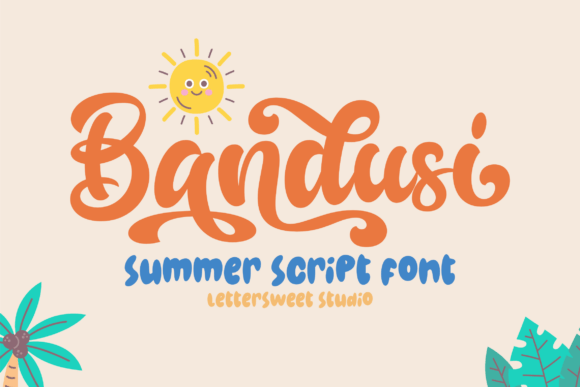
Summer Vibes, Hand-Lettered Style: Meet the Bandusi Font
Have you ever been working on a design project and suddenly, a burst of creativity strikes? You envision a vibrant, sunny scene that screams summer fun, and your imagination runs wild with possibilities. That’s exactly what happens when you add the Bandusi Font to your design arsenal.
This playful summer script font is designed to bring sunshine to your designs, making it perfect for fun and vibrant projects like t-shirt designs, kids’ branding, party invitations, and product packaging. The Bandusi Font’s cheerful hand-lettered style and smooth, bouncy strokes are sure to add warmth and joy to every word. For designers, the Bandusi Font is a valuable asset, offering a unique, handmade touch that sets your work apart from the rest.
Key Features of Bandusi Font
- Font Family: Bandusi Font comes in two font styles, Regular and Bold.
- Unique Characteristics: Bandusi Font features a unique blend of modern and traditional design elements, making it perfect for creative and artistic projects.
Review of Bandusi Font
I’ve had the chance to play around with the Bandusi Font, and I must say it’s an interesting addition to the font family. Here are my thoughts on what works well and what doesn’t.
- The unique blend of modern and traditional styles is quite appealing. It’s a great option for designers who want to create a distinctive look.
- The font is highly customizable, with a wide range of weights and styles available. This makes it easy to tailor the font to specific design projects.
- The font is optimized for digital use, which means it looks great on screens and prints well.
- The font’s readability can be a bit of a concern, especially at smaller font sizes. The intricate details can make it difficult to decipher the text.
Overall, I think the Bandusi Font has a lot of potential. With a bit more refinement and attention to detail, it could become a top choice for designers. However, in its current state, it’s not without its limitations. I’d recommend it for projects where the unique style and customization options are essential, but be prepared to do some extra work to get it to look its best.
For best results, use the Bandusi Font for creative projects that require a unique, cursive look.
Some common use cases include:
2. Handmade crafts and DIY projects.
3. Custom illustrations and graphics.